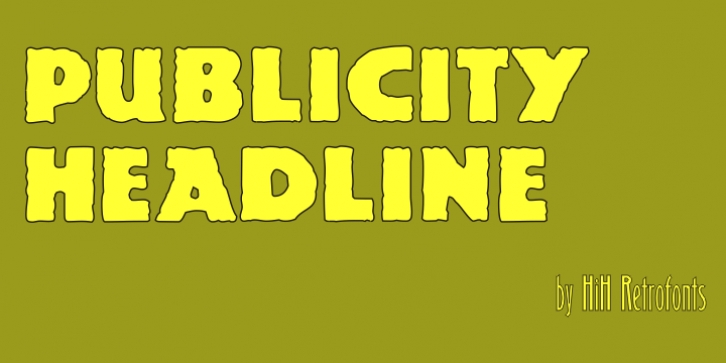
Publicity Headline downloadDesigner: Sidney Clyde Gaunt
Publicity Headline is an allcaps advertising font. Its heavy weight and robust strength allows it to be used against complex backgrounds or reversed out on dark backgrounds without getting lost. It also has a warm, friendly feeling for the conventional headlines indicated by the name.
Publicity Headline is a distinctive and appealing font for creating bold and unusual headlines.
This font includes the alternate R & S and the CO, LY & ST ligatures that were part of Gaunt’s original design. In addition, the ligatures AV, AW, WA, WO & YO are provided; along with AT, OF, AND & THE in the form of underlined small caps.